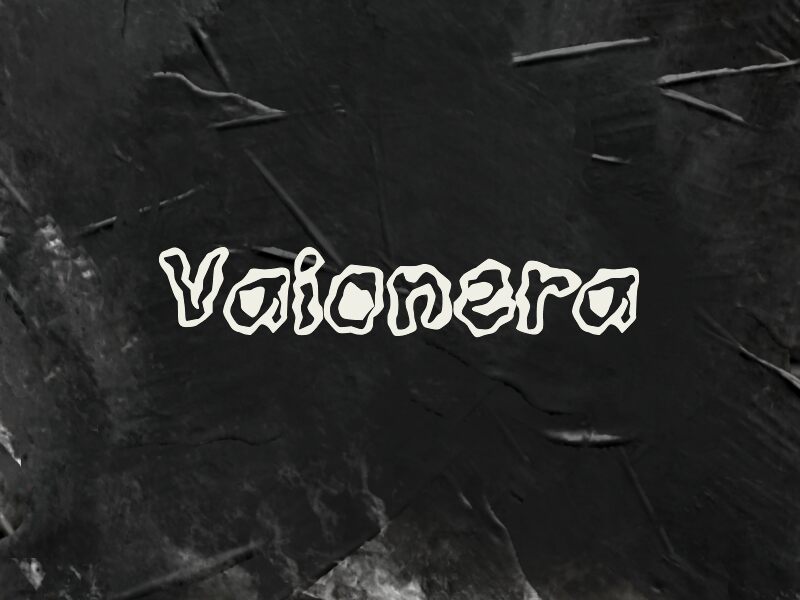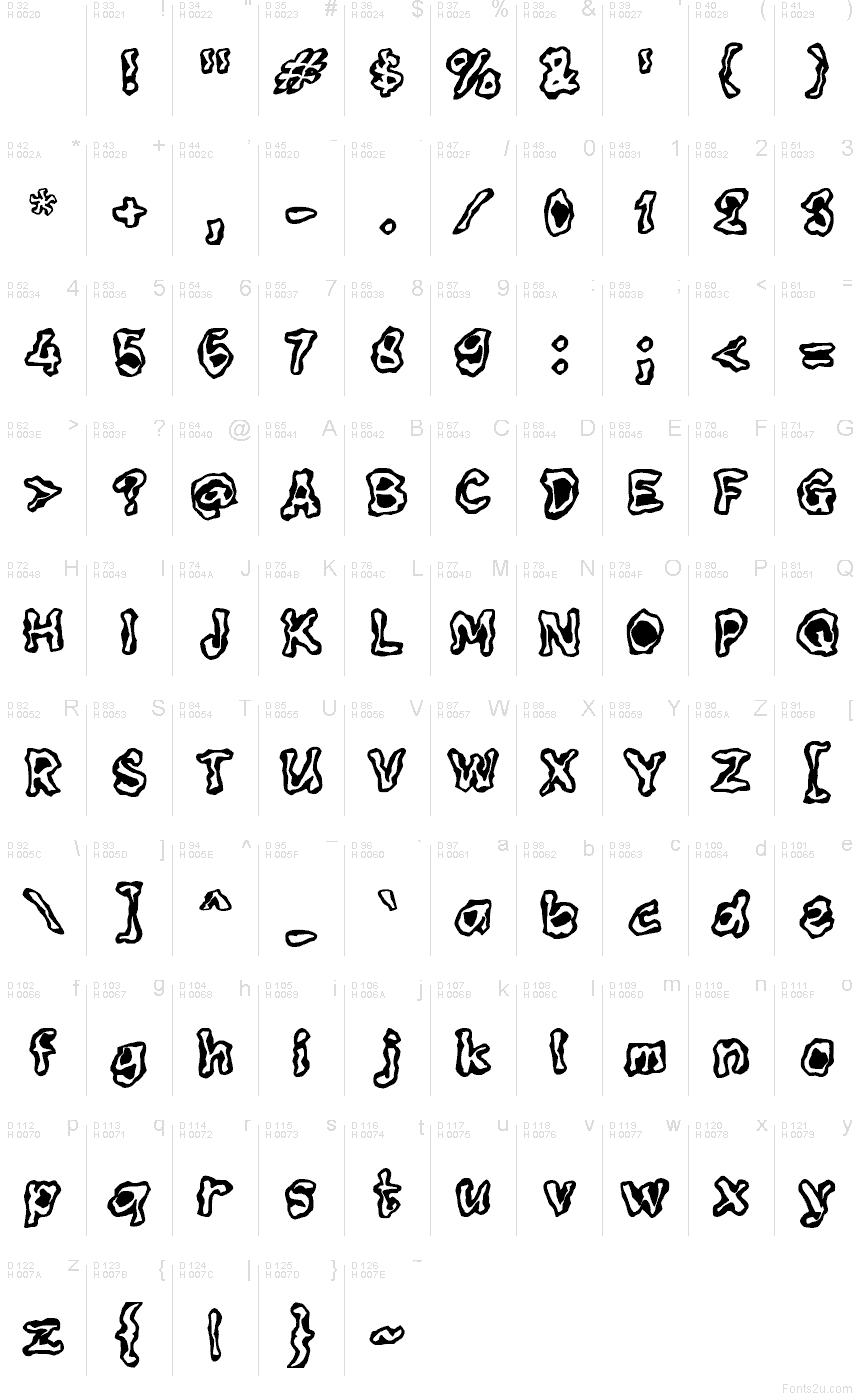
Vaionera
Vaionera font by wepfont.com is a free decorative outlined display typeface with a wonderfully odd, hand-drawn edge. Each letter looks like it’s been cut from ink-drenched paper, with wobbly contours and hollow centers that feel both playful and slightly eerie. The rhythm is loose and organic, so words don’t sit stiff on the line—they wriggle and pulse, catching the eye in a way that cleaner fonts simply can’t.
Using Vaionera, you can push posters, zines, album covers, streetwear graphics, event flyers, and DIY brand marks into bold, offbeat territory. This free font shines when used large, where the chunky outlines and cavern-like interiors really show. Pair Vaionera with a simple, neutral sans serif for body copy to keep things readable while letting the wonky outlines own the spotlight.